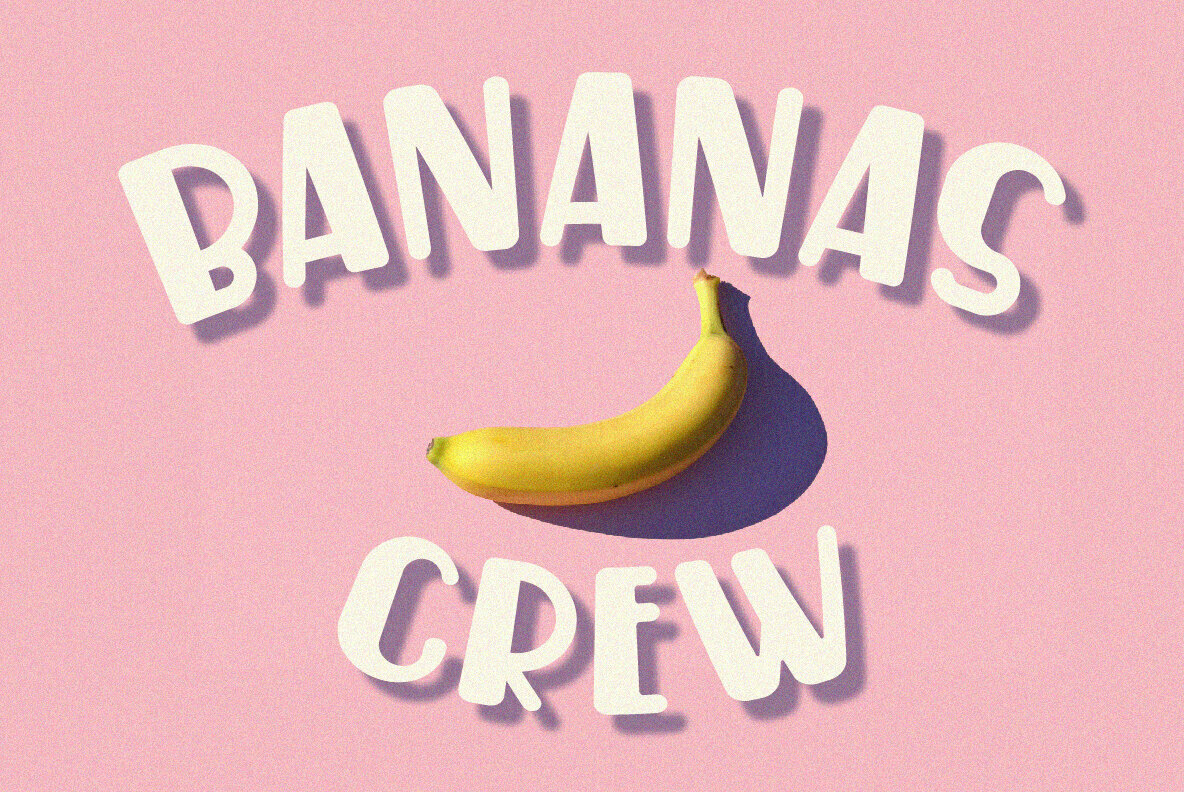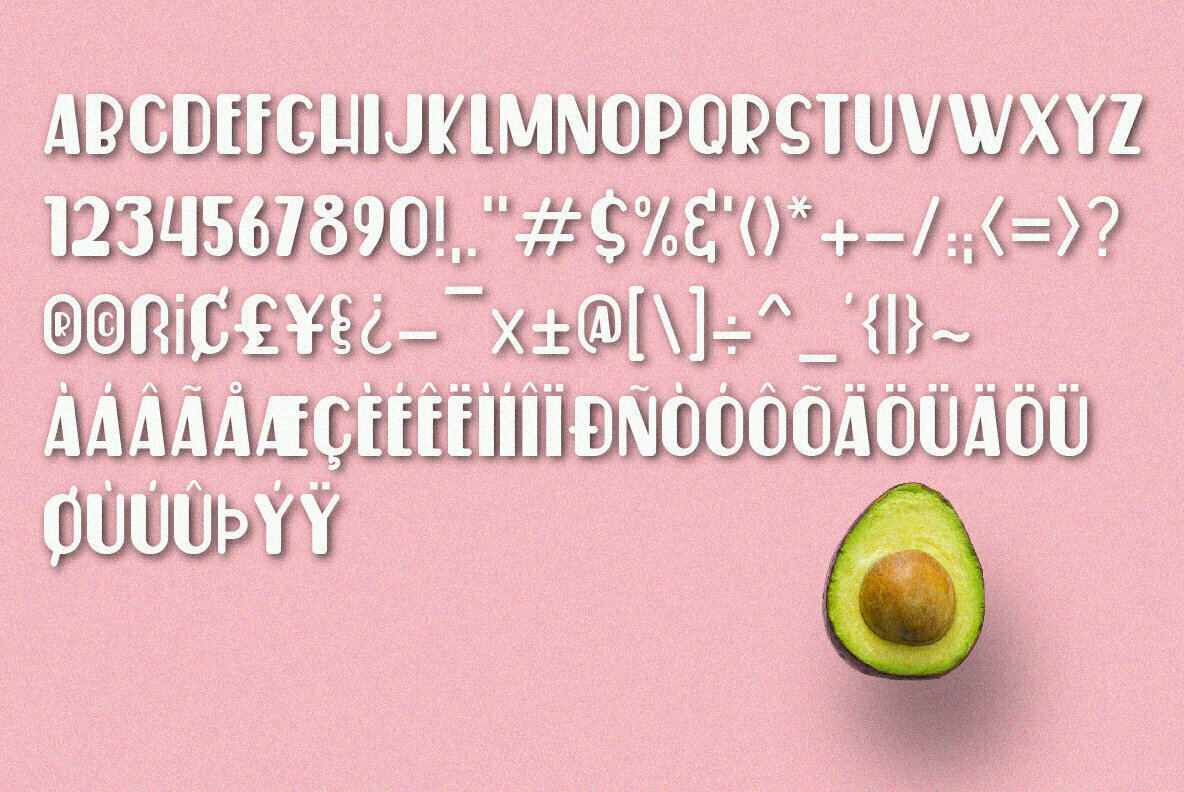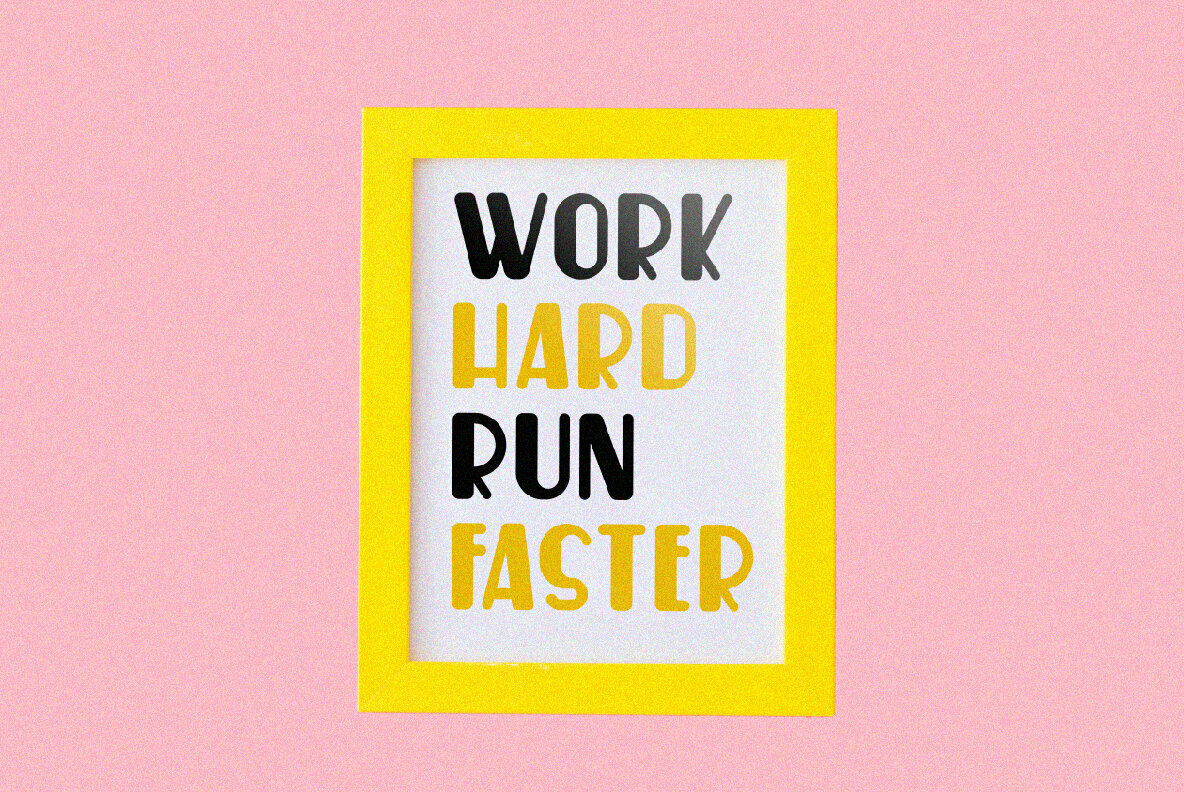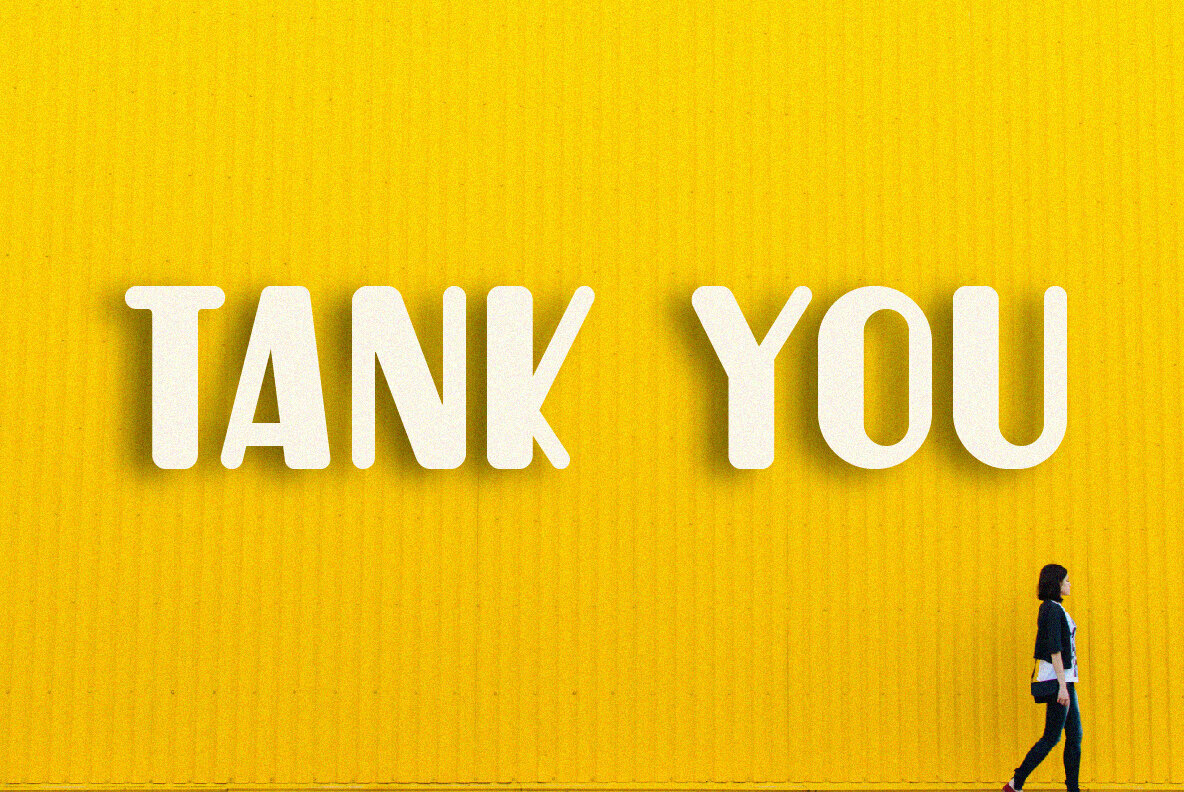
Wingko Font
Wingko
Wingko is designed with a clean and playful style, making it an ideal choice for quotes, headlines, crafts, and more. With its straightforward elegance, it seamlessly integrates into various design projects, lending a touch of charm without overwhelming the visual narrative.Wingko: A Simple and Fun Font Choice